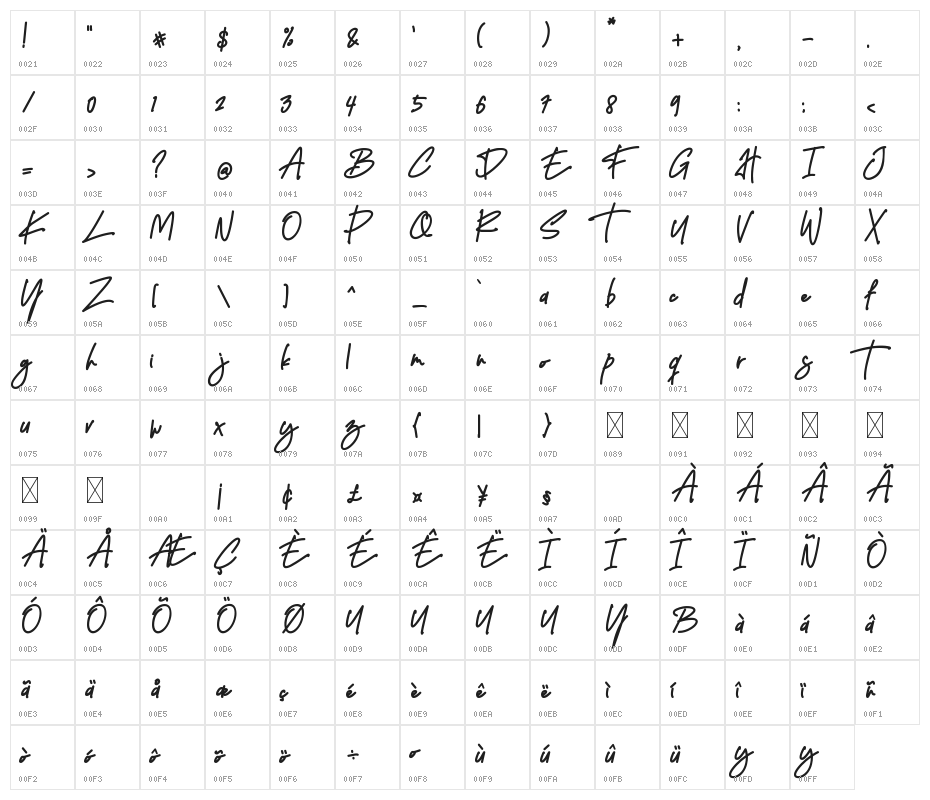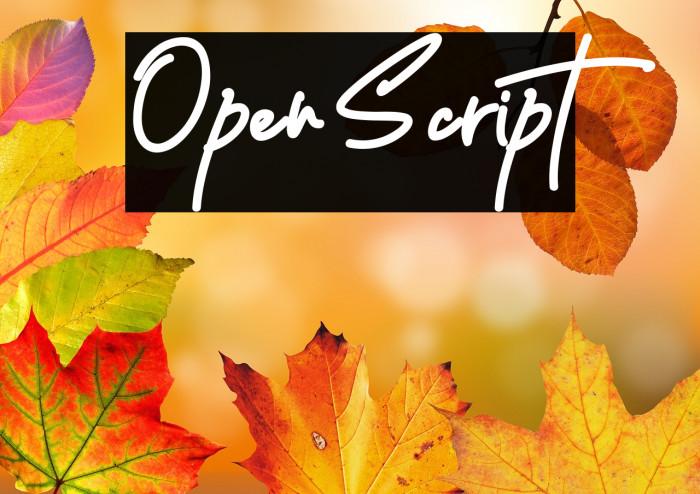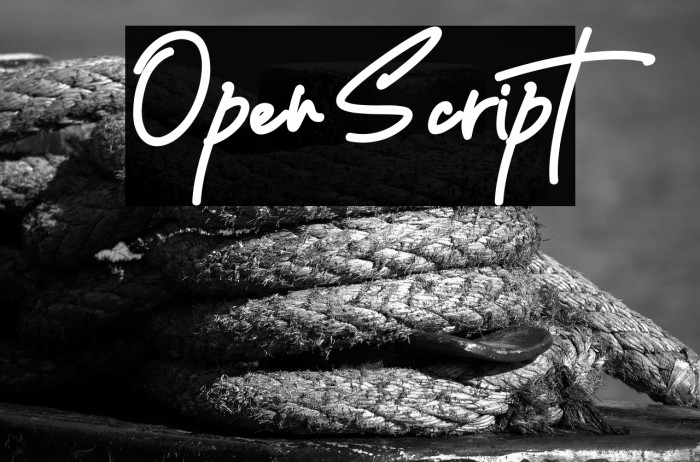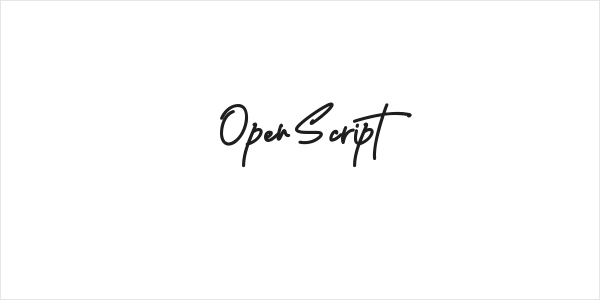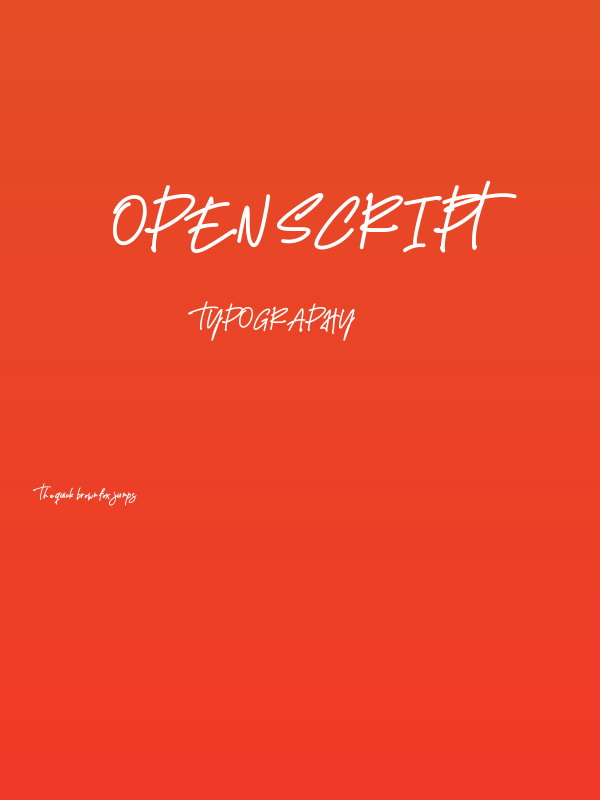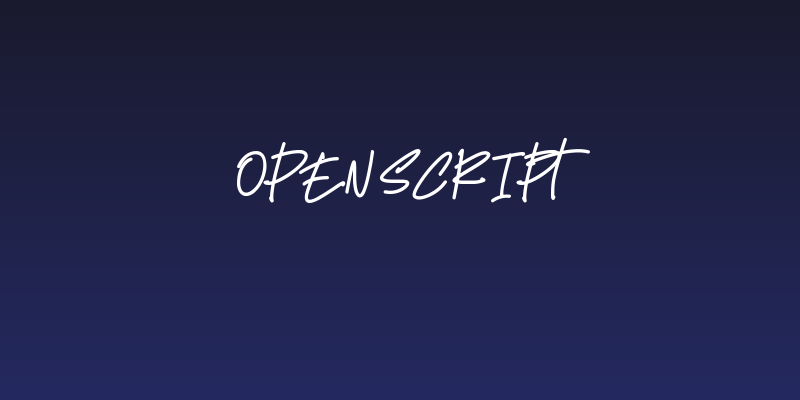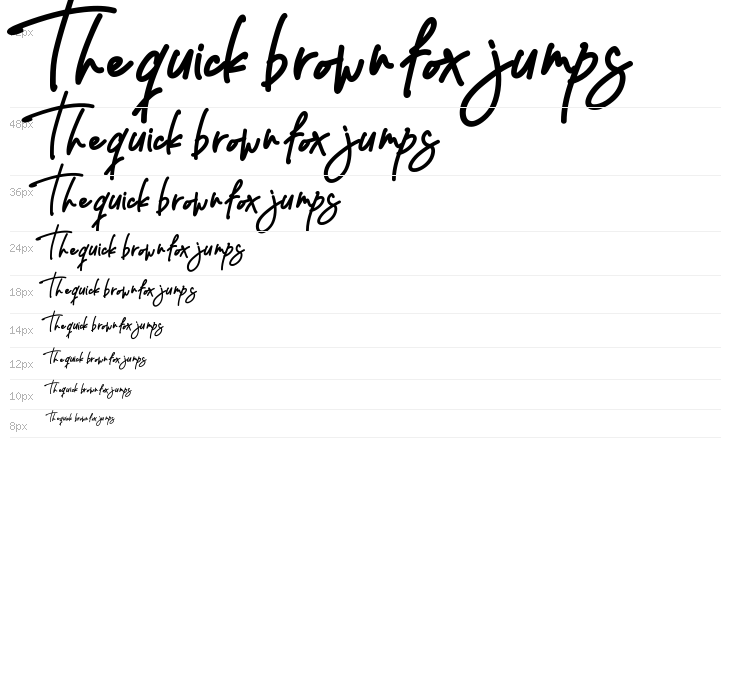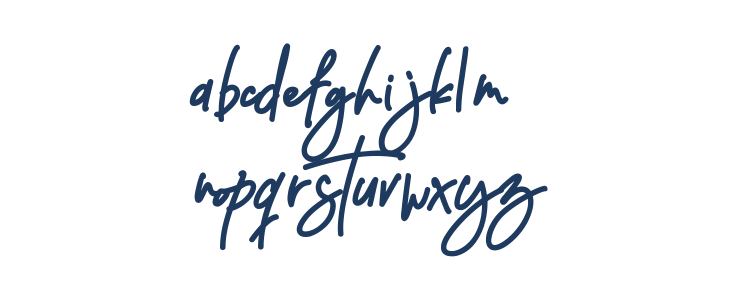
Open Script Font
Open Script Description
This font exhibits a lively and dynamic handwritten style, characterized by its fluid and cursive strokes. The uppercase letters are bold and slightly slanted, giving a sense of motion and energy. Lowercase letters maintain a consistent flow, with some characters featuring distinctive loops and swirls that add to its playful nature. The numbers are equally expressive, maintaining the same energetic style. Special characters are well-integrated, ensuring a cohesive look across all glyphs. This font is ideal for projects that require a personal touch, such as invitations, greeting cards, or branding materials that aim to convey creativity and friendliness.
| Use Case | Logos, Headlines, Invitations |
| Proposed Projects | Ideal for invitations, greeting cards, personal branding, and creative projects. |